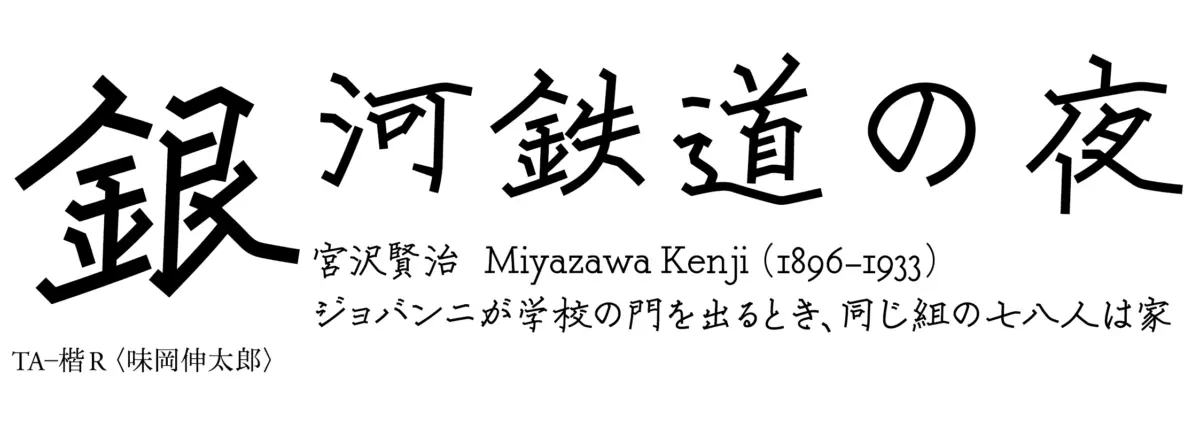
Expanding Horizons in Typography: Typekit Welcomes Renowned Japanese Foundries Kinuta Font Factory and Skill Information “S”
Main Facts: A Major Boost for Japanese Typography on Typekit
In a significant expansion of its global typographic offerings, Typekit has officially announced the addition of two esteemed Japanese type foundries to its platform: Kinuta Font Factory and Skill Information “S” Co., Ltd. This collaboration introduces an impressive collection of eleven meticulously crafted new fonts to the Typekit library, bridging the gap between traditional Japanese aesthetics and modern digital design requirements.
Typography enthusiasts, graphic designers, and web developers now have immediate access to these diverse typefaces, which range from contemporary interpretations of classic Japanese signage styles to sophisticated logotype-inspired calligraphy. The inclusion of these foundries underscores Typekit’s ongoing commitment to diversifying its catalog with high-quality, culturally rich international type design.
Chronology: The Journey of Craftsmanship and Collaboration
To fully appreciate the significance of this release, it is essential to examine the distinct historical trajectories of both Kinuta Font Factory and Skill Information “S,” whose decades of combined dedication have culminated in this major digital rollout.
Kinuta Font Factory: Two Decades of Independent Craft
For nearly twenty years, Kinuta Font Factory has operated as a dedicated independent producer of Japanese typefaces. Founded with a deep respect for the nuances of Japanese characters—Kanji, Hiragana, and Katakana—Kinuta has steadily built a reputation for creating fonts that balance legibility with distinct artistic flair. Over the past two decades, the foundry has quietly shaped the visual landscape of Japanese print and digital media through persistent experimentation and artisanal precision.
Skill Information “S”: An Unconventional Path into Type Design
The origin story of Skill Information “S” is uniquely intertwined with the technology and healthcare sectors. Originally established as a software development firm primarily servicing the health services industry, the company ventured into the specialized world of font creation in 2007 through a strategic collaboration with Techno Advance Co., Ltd.
What began as an inter-industry partnership blossomed into a serious typographic enterprise. By leveraging technological expertise alongside artistic partnerships—such as working with renowned designers like Shintaro Ajioka—Skill Information “S” carved out a unique niche, producing typefaces that reflect both technical rigor and deep artistic heritage.
The Typekit Integration
The culmination of these separate journeys arrived with the recent onboarding process on Typekit. Following rigorous testing and digital optimization, Typekit curated an initial selection of eleven fonts from these two foundries—three from Kinuta and eight from Skill Information “S.” This milestone release marks the formal transition of these regionally celebrated typefaces onto a premier global stage, making them accessible to creators worldwide.
Supporting Data: Spotlight on Featured Typefaces and Designers
The eleven new additions to the Typekit library are highlighted by standout releases that showcase the distinct craftsmanship of each foundry. Below is a closer look at the featured typefaces and the creative minds behind them.
Iroha 32 Sakura Kana by Kinuta Font Factory
Among the three fonts introduced from Kinuta is Iroha 32 Sakura Kana, a typeface that reimagines the traditional Gothic style commonly encountered in Japanese signage and urban environments.
• Design Philosophy: While standard Gothic typefaces in Japanese typography are often utilitarian and rigid, Iroha 32 Sakura Kana offers a fresh, modern perspective.
• Application: According to representatives at Kinuta, this typeface was specifically conceived to serve as a versatile alternative for designers setting Kana text in a Gothic style, offering enhanced readability paired with subtle visual warmth.
• Visual Impact: The font captures the energetic feel of Japanese public typography while maintaining the structural integrity required for contemporary branding and editorial layout.
TA-Kai by Skill Information “S”
Skill Information “S” contributes eight fonts to the library, spearheaded by the remarkable TA-Kai, designed by veteran logotype designer Shintaro Ajioka.
The Typekit Blog | Fonts from two Japanese foundries added to Typekit
• The Designer’s Background: Shintaro Ajioka brings a wealth of experience in logotype design, specializing in traditional calligraphic styles. His profound understanding of brush movement and ink flow heavily influences his digital type design.
• Aesthetic Balance: TA-Kai is celebrated for its delicate equilibrium between straight, linear stroke formations and an overall sense of softness. This duality prevents the typeface from feeling overly stern or rigidly geometric, lending it a graceful, organic quality.
• Cultural Resonance: The font’s naming and aesthetic tie into rich Japanese literary traditions. Notably, the foundry’s wider collection draws inspiration from cultural icons such as Kenji Miyazawa, a celebrated poet and author renowned for his deeply imaginative children’s stories, many of which have been adapted into legendary anime films. This literary connection infuses the typography with a narrative depth that resonates deeply with storytelling mediums.
Official Responses and Industry Perspectives
The introduction of Kinuta Font Factory and Skill Information “S” to Typekit has generated considerable discussion within the global design community, highlighting the growing demand for authentic, diverse regional typography in digital spaces.
Insights from the Foundries and Typekit Representatives
While specific individual statements from the founders remain understated—reflecting the traditionally modest culture of Japanese artisanal foundries—representatives from Typekit have expressed immense enthusiasm for the partnership.
A Typekit spokesperson noted that the inclusion of these foundries aligns with a broader mission to make high-end typography universally accessible. By partnering with independent creators who have spent decades refining their craft outside of major conglomerate structures, Typekit continues to champion authentic design voices.
In communications regarding Kinuta’s Iroha 32 Sakura Kana, a foundry liaison emphasized the importance of everyday legibility:
"We wanted to provide designers with a tool that honors the functional roots of Japanese signage while injecting a renewed sense of visual grace. Seeing this style adapted for global digital platforms is a proud milestone for our team."
Similarly, discussions surrounding Shintaro Ajioka’s work on TA-Kai highlight the bridge between traditional calligraphy and modern vector design. Industry analysts point out that Ajioka’s expertise ensures that digital type maintains the soulful imperfections and dynamic rhythm of hand-drawn brushwork.
Implications: The Future of Global Typography and Digital Design
The addition of these Japanese foundries to Typekit carries profound implications for the future of digital design, web development, and typographic cross-pollination.
1. Elevating Non-Latin Typography in Global Web Design
For decades, web design was heavily dominated by Latin script, with non-Latin typography often suffering from limited font availability, inconsistent rendering, or high technical hurdles. By expanding its library to include niche, highly specialized international foundries like Kinuta and Skill Information “S,” Typekit is helping to level the playing field. Designers working on multilingual websites, international branding campaigns, and localized digital products now have access to elite-tier Japanese typography that matches the sophistication of their Latin counterparts.
2. The Renaissance of Regional Craftsmanship
As digital tools democratize the design process, there is a simultaneous resurgence in the appreciation for hyper-localized, culturally rooted craftsmanship. Kinuta Font Factory’s twenty-year dedication to regional signage aesthetics and Skill Information “S’s” unique evolution from healthcare software to calligraphic art demonstrate that innovation often springs from unexpected intersections. This partnership proves that independent foundries with deep local roots can find a vibrant, global audience through cloud-based typography platforms.
3. Practical Applications for Creators
With these eleven new fonts now available for immediate desktop syncing and web kit deployment, designers are empowered to experiment with unprecedented stylistic combinations. Whether crafting an atmospheric website inspired by the poetic works of Kenji Miyazawa using TA-Kai, or designing modern urban signage and editorial layouts utilizing Iroha 32 Sakura Kana, the creative possibilities are vast.
Ultimately, this collaboration between Typekit, Kinuta Font Factory, and Skill Information “S” is more than just a routine library update; it is a celebration of cultural exchange through design, ensuring that the rich heritage of Japanese typography continues to thrive and inspire creators across the globe for generations to come.